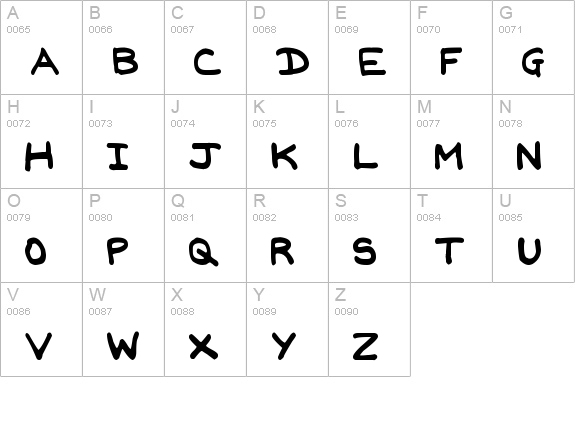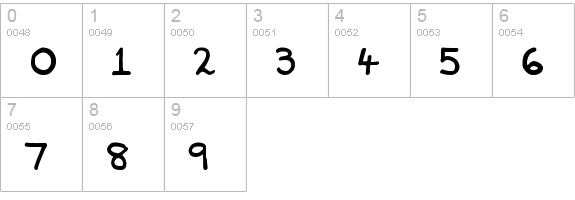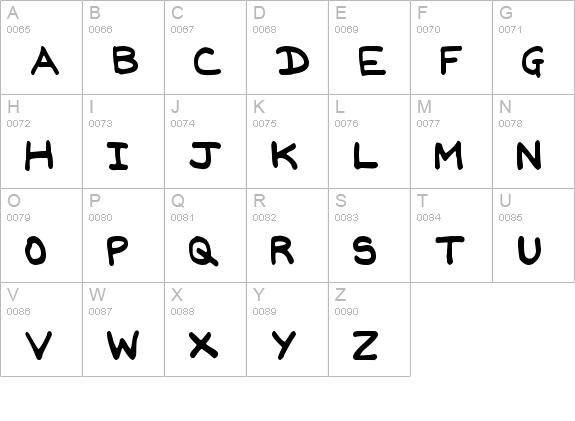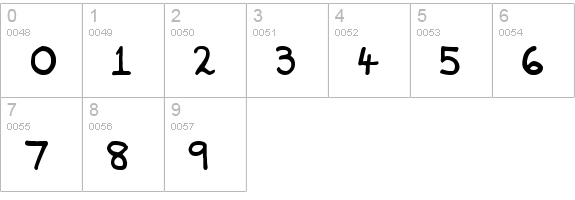
The Jan Hand font is a charming and versatile typeface that exudes a sense of warmth and personality. With its playful handwritten style, Jan Hand is perfect for adding a personal touch to your projects, whether it's a greeting card, invitation, or social media graphic. This free font is designed with legibility in mind, making it easy to read even at smaller sizes. Jan Hand is freely available to download at FontsMarket.com, where you can access this delightful font and enhance your designs with its unique flair. Add a touch of whimsy and creativity to your projects with Jan Hand font, and watch as your text comes to life with its distinctive character and charm.